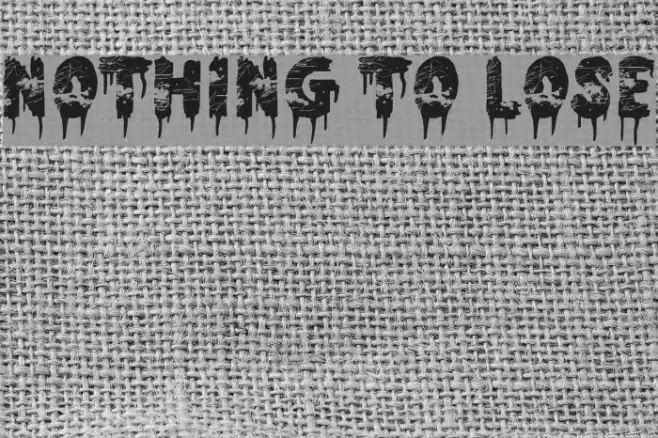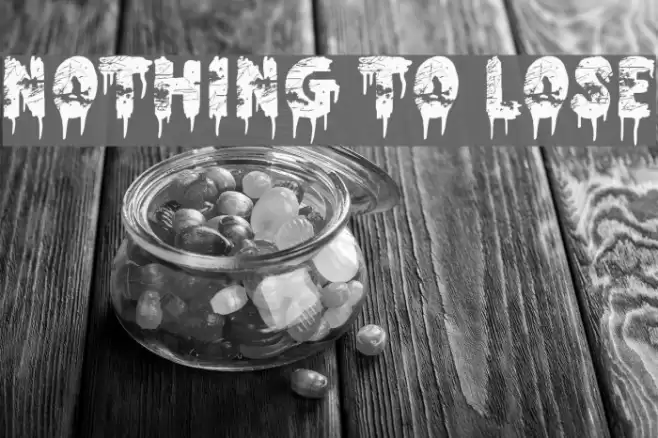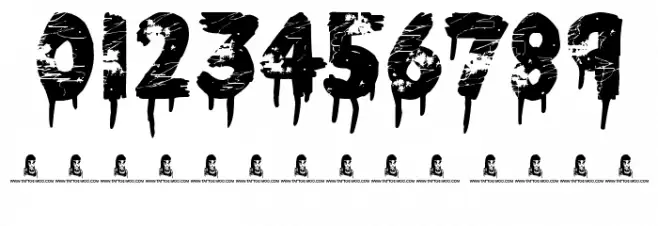
Nothing To Lose Font
Nothing To Lose Description
This font features a bold and dramatic style with a distressed, grunge appearance. The characters are heavily textured, resembling paint splatters or ink drips, giving it a raw and edgy look. The uppercase letters are uniform in height, while the numbers maintain a consistent style. The font's unique design elements make it stand out, with each character appearing as if it's melting or dripping, adding a sense of movement and chaos. This font is perfect for projects that require a strong visual impact and a rebellious or alternative aesthetic.
A bold, distressed font with a grunge, dripping paint effect from Uncategorized fonts.
- Proposed Projects: Ideal for album covers, posters, streetwear branding, or any project needing a bold, edgy aesthetic.
- Overall Style: Grunge, Edgy, Alternative